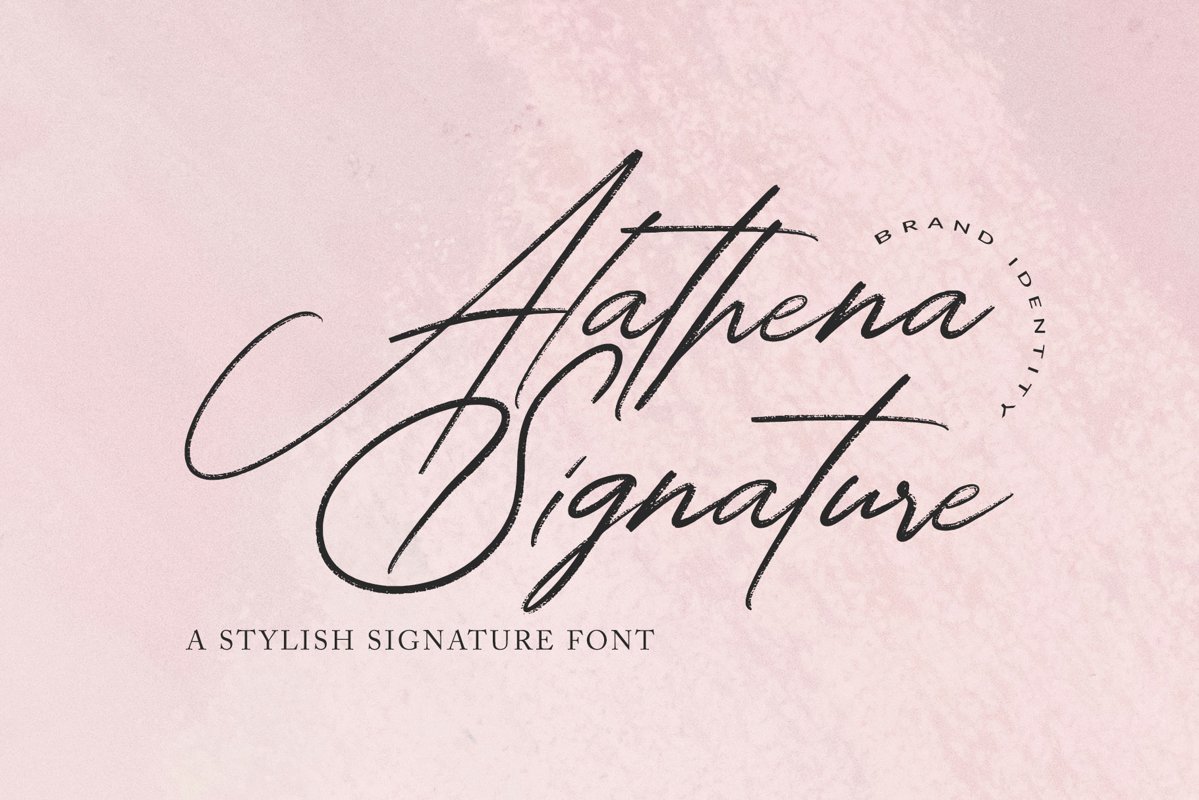
Alathena Signature Font
Alathena Signature
Introduced our newest product Alathena Signature font . We hope this font perfect for creating signature logos or logo signature and watermarks for photography studio,personal or branding . We made it with a sense brush of elegant,professional, and very catchy.
The Features of this fonts is:
• Standart ligatures
• Swash Alternates
• Stylistic sets